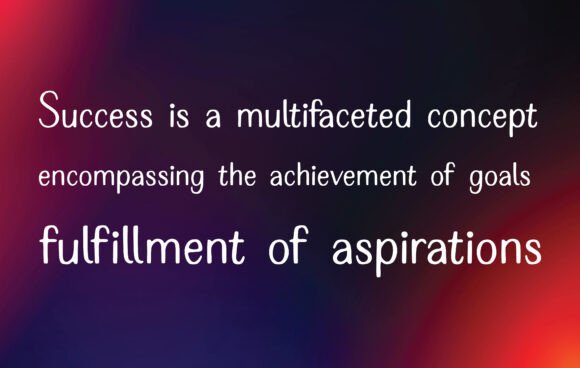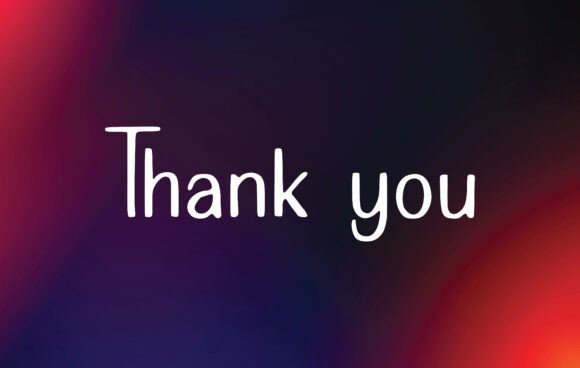
Introducing Carson Font: Elevate Your Creative Projects with Elegance
Are you on the lookout for a font that can add a touch of elegance and sophistication to your creative projects? Look no further than Carson Font, a lovely and beautiful handwritten font that has the potential to take your ideas to new heights. In this article, we’ll dive into the world of Carson Font, exploring its features, benefits, and uses, and why it’s the perfect choice for designers and crafters alike.
What is Carson Font?
Carson Font is a stunning handwritten font that exudes elegance and refinement. Its beautiful, flowing script is perfect for adding a personal touch to a wide range of creative projects, from logos and branding to quotes and social media graphics. With its unique and distinctive style, Carson Font is sure to make your designs stand out from the crowd.
Key Features of Carson Font
So, what makes Carson Font so special? Here are just a few of its key features:
- Beautiful Handwritten Style: Carson Font boasts a gorgeous handwritten style that’s perfect for creating eye-catching designs.
- Elegant and Refined: This font exudes elegance and sophistication, making it perfect for high-end branding and design projects.
- Highly Versatile: Carson Font can be used for a wide range of creative projects, from logos and branding to quotes and social media graphics.
- Easy to Read: Despite its elegant style, Carson Font is highly legible, making it perfect for use in both digital and print designs.
Benefits of Using Carson Font
So, why should you choose Carson Font for your creative projects? Here are just a few of the benefits of using this amazing font:
- Adds a Personal Touch: Carson Font’s handwritten style adds a personal touch to your designs, making them more relatable and engaging.
- Boosts Creativity: With its unique and distinctive style, Carson Font is sure to inspire your creativity and take your designs to new heights.
- Perfect for Branding: Carson Font’s elegant and refined style makes it perfect for use in branding and logo design, helping to create a lasting impression on your audience.
- Great for Social Media: Carson Font’s stylish and eye-catching design makes it perfect for use in social media graphics, helping to grab the attention of your followers.
How to Use Carson Font
So, how can you use Carson Font in your creative projects? Here are a few ideas to get you started:
- Logos and Branding: Use Carson Font to create stunning logos and branding materials that will help your business stand out.
- Quotes and Graphics: Add a touch of elegance to your quotes and graphics with Carson Font, perfect for use on social media or in print designs.
- Invitations and Stationery: Use Carson Font to create beautiful invitations and stationery that will add a personal touch to your correspondence.
- Web Design: Add a touch of sophistication to your website with Carson Font, perfect for use in headings, titles, and other design elements.
Tips and Tricks for Using Carson Font
Here are a few tips and tricks to help you get the most out of Carson Font:
- Experiment with Colors: Try pairing Carson Font with different colors to create unique and eye-catching designs.
- Play with Sizes: Experiment with different font sizes to create visual interest and hierarchy in your designs.
- Add Texture and Patterns: Add texture and patterns to your designs to create depth and visual interest.
- Use it Sparingly: Use Carson Font sparingly to create emphasis and add a touch of elegance to your designs.
In conclusion, Carson Font is a beautiful and elegant handwritten font that’s perfect for designers and crafters looking to add a touch of sophistication to their creative projects. With its unique and distinctive style, Carson Font is sure to inspire your creativity and take your designs to new heights. Whether you’re looking to create stunning logos and branding, eye-catching quotes and graphics, or beautiful invitations and stationery, Carson Font is the perfect choice.